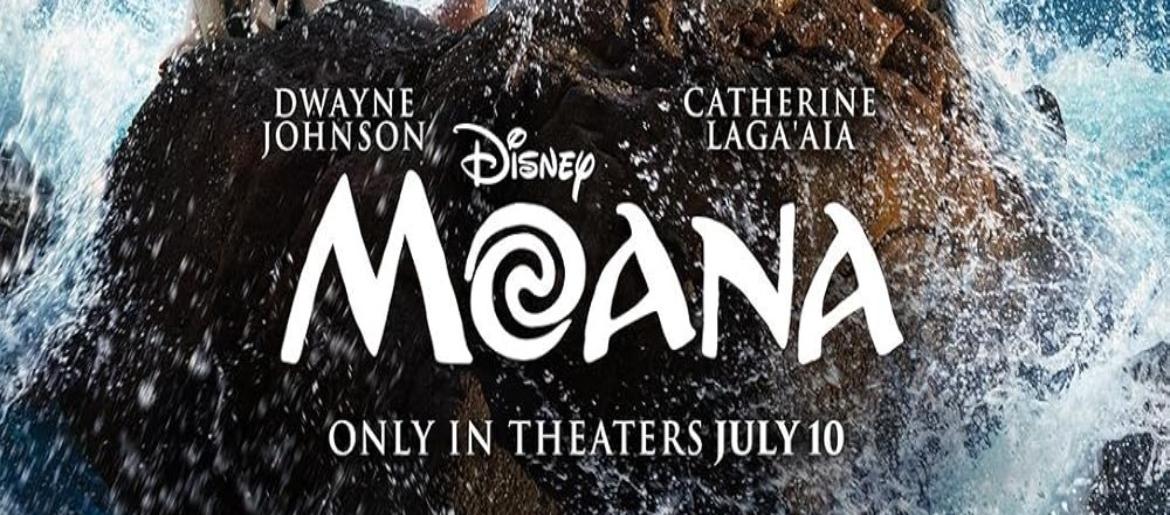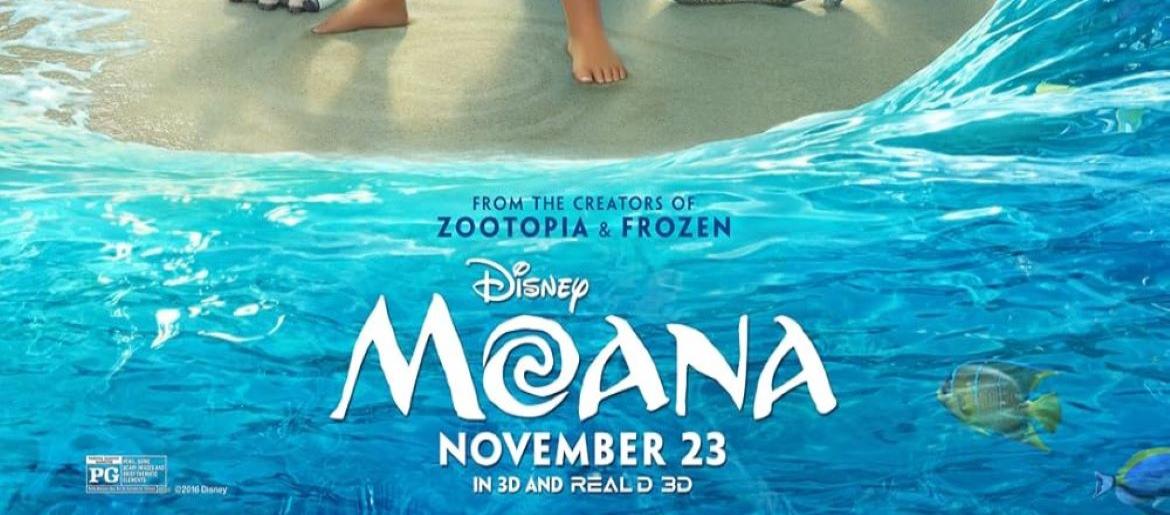
Moana Font
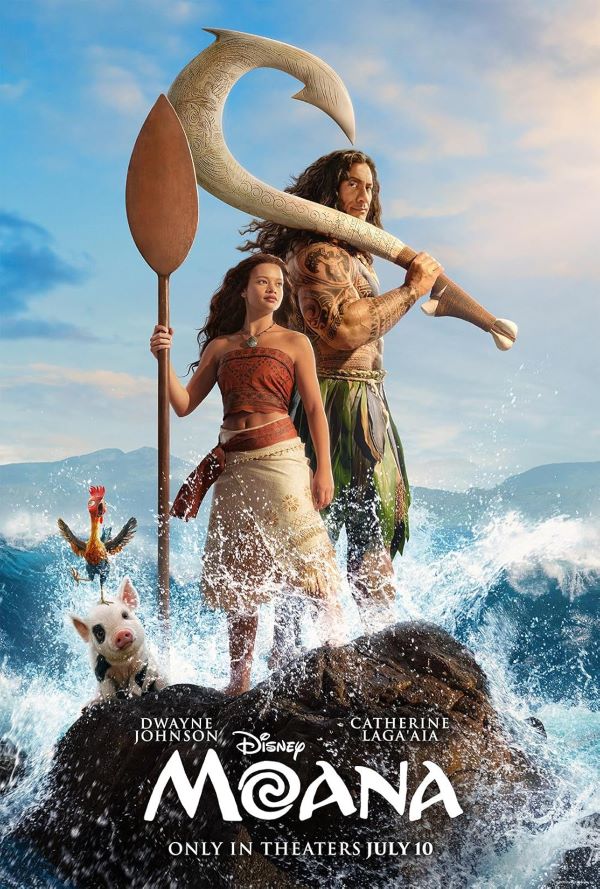
The Moana Font used in the 2026 live-action adaptation closely matches Moanas, a display font inspired by Polynesian-style lettering. It features bold shapes, carved details, and organic curves that create a tropical, adventurous, and cultural visual identity. The stylized letterforms reflect island aesthetics and traditional motifs, making it highly recognizable and fitting for the film’s theme. Moanas is available for free download, making it a popular choice for fan art, posters, and creative projects inspired by the movie’s branding.